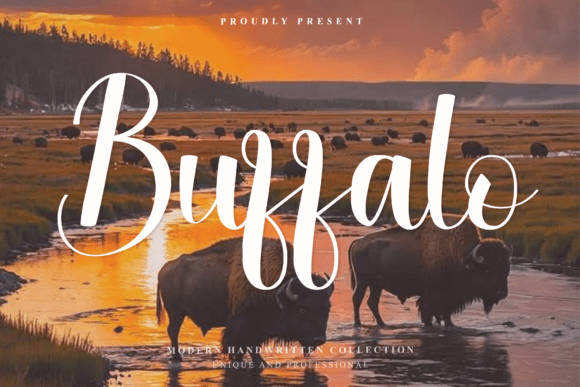
The Designer’s Delight: Unpacking the Charm of Buffalo Font
I still remember the frustration of working on a branding project for an outdoor gear company, struggling to find the perfect font that embodied both adventure and sophistication. The client wanted something that felt handmade yet polished, and I was on the verge of giving up. That’s when I stumbled upon Buffalo Font, a stylish handwritten typeface that instantly resonated with the project’s vibe. Its unique blend of organic charm and strong typographic presence was exactly what I needed. In this article, I’ll share my experience with Buffalo Font, its features, and how to make the most of it in your designs.
An Honest Review of Buffalo Font
• ✨ Distinctive bouncy rhythm: The font’s thick, solid strokes have a friendly and approachable character that’s hard to find in digital fonts.
• ✅ Well-balanced proportions: Buffalo Font remains impactful even in busy designs, making it perfect for a variety of applications.
• 🌿 Organic feel: The font’s handmade look is perfect for outdoor lifestyle branding, organic product packaging, and rustic event invitations.
• 💼 Professional edge: Despite its organic feel, Buffalo Font has a polished, professional edge that elevates it above other handwritten fonts.
While Buffalo Font is an excellent choice for many projects, there are a few things to keep in mind:
• 🤔 Limited use in formal designs: Due to its handwritten nature, Buffalo Font might not be the best fit for formal or corporate designs that require a more traditional look.
• ⚠️ Legibility at small sizes: As with many handwritten fonts, Buffalo Font can become less legible at very small sizes, so it’s best used at larger sizes or in headlines.
The Story Behind Buffalo Font
Buffalo Font was designed with the intention of capturing the essence of handmade typography while maintaining a professional edge. Its creator aimed to produce a font that felt both adventurous and sophisticated, suitable for a wide range of creative projects. The result is a typeface that blends organic charm with strong typographic presence.
Q: What makes Buffalo Font unique?
A: Buffalo Font’s unique blend of organic charm and strong typographic presence sets it apart from other fonts. Its thick, solid strokes and bouncy rhythm give it a friendly and approachable character.
Q: Is Buffalo Font suitable for formal designs?
A: While Buffalo Font has a professional edge, its handwritten nature makes it less suitable for very formal or corporate designs. It’s best used in projects that allow for a more creative and organic feel.